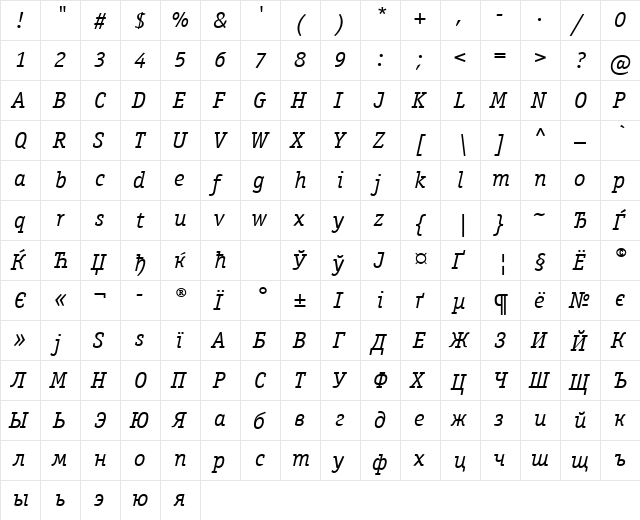
OfficinaSerifCTT Italic Font Preview
OfficinaSerifCTT Italic
Design Context for OfficinaSerifCTT Typeface
OfficinaSerifCTT carries the refined structure of traditional serif typography, with bracketed terminals and considered proportions that communicate credibility and craft. Its italic angle brings a sense of urgency and motion to the letterforms.